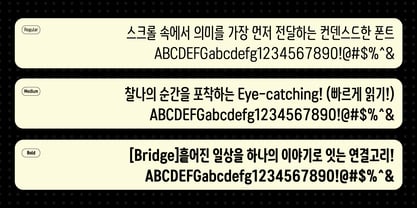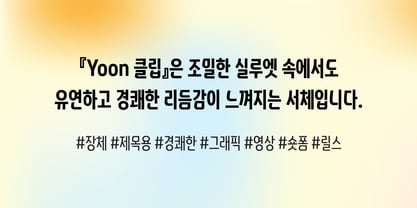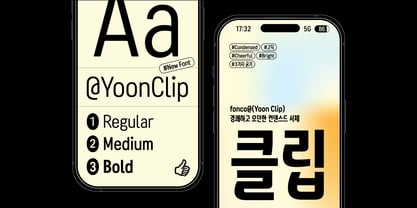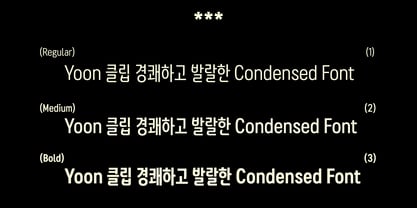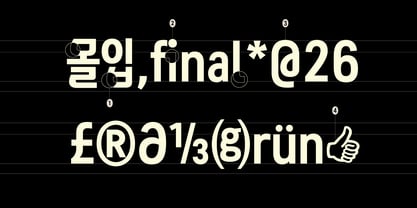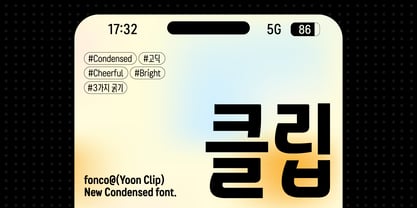
Yoon Clip
par Yoon Design
La famille de polices Yoon Clip a été conçue par Yoon Design Team et publiée par Yoon Design. Yoon Clip contient 3 styles et options de package familial. En savoir plus sur cette famille
Yoon Clip is a casual condensed sans serif designed for efficient communication. Its narrow letterforms maximize readability and fit comfortably on small mobile screens. Like a memorable highlight clip, it helps your most important messages stand out with clarity.
Family size: Multi-weight family.
Glyph count: 2,780 hangeul glyphs, 95 Latin glyphs, 65 Extended Latin glyphs, 986 KS symbols, and 1 hidden dingbat (hangeul area).
Language support: Multi-lingual support for English, Korean, and more.
Concepteurs: Yoon Design Team
Fonderie: Yoon Design